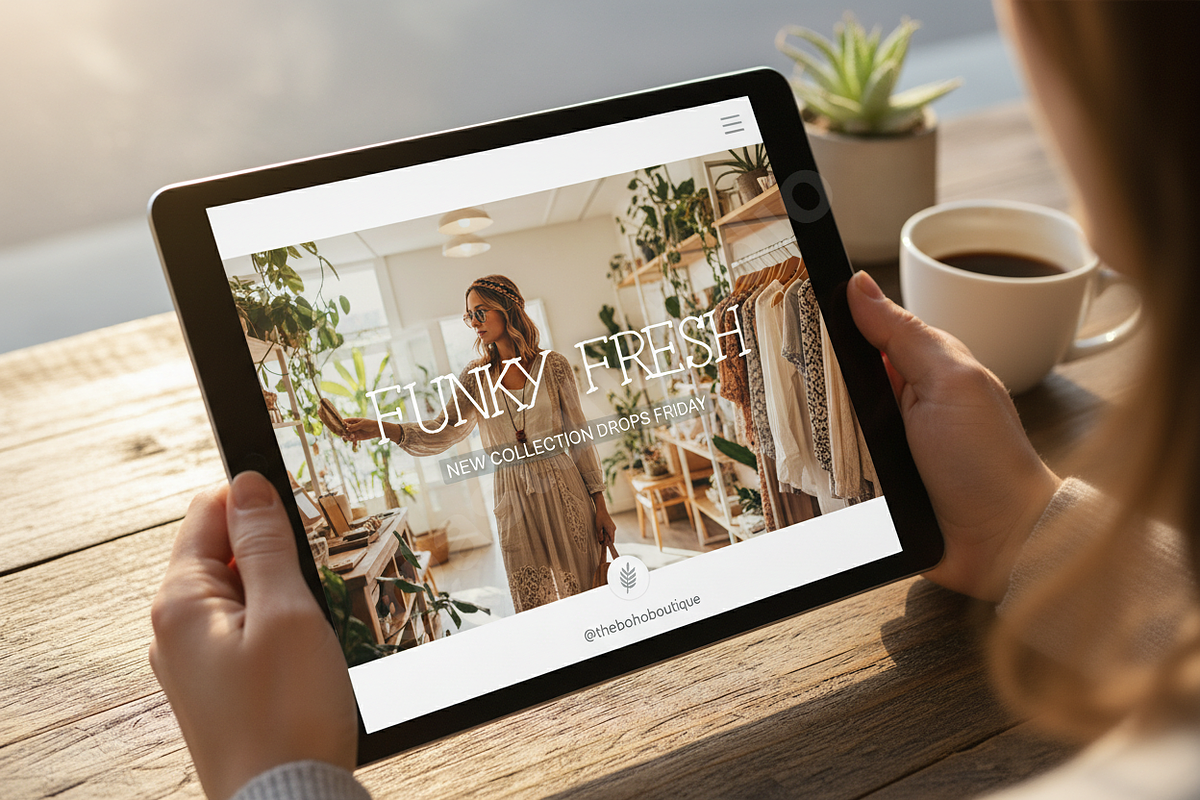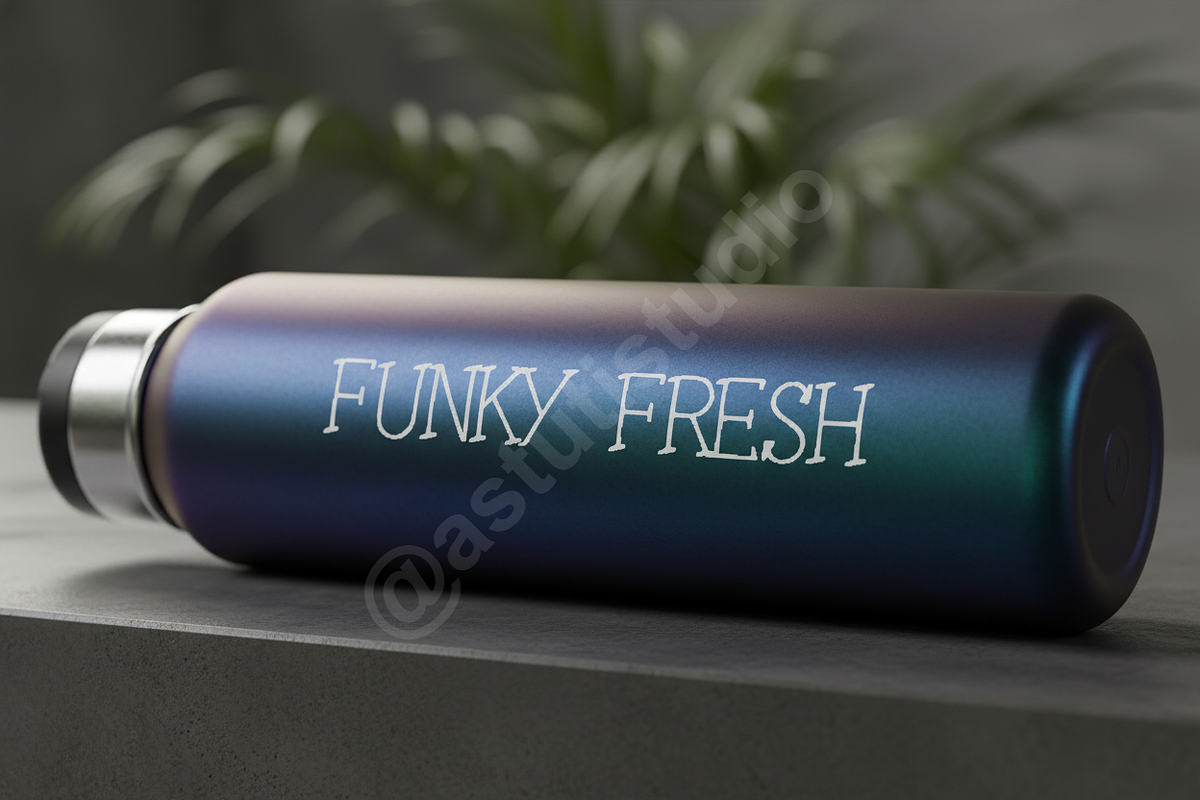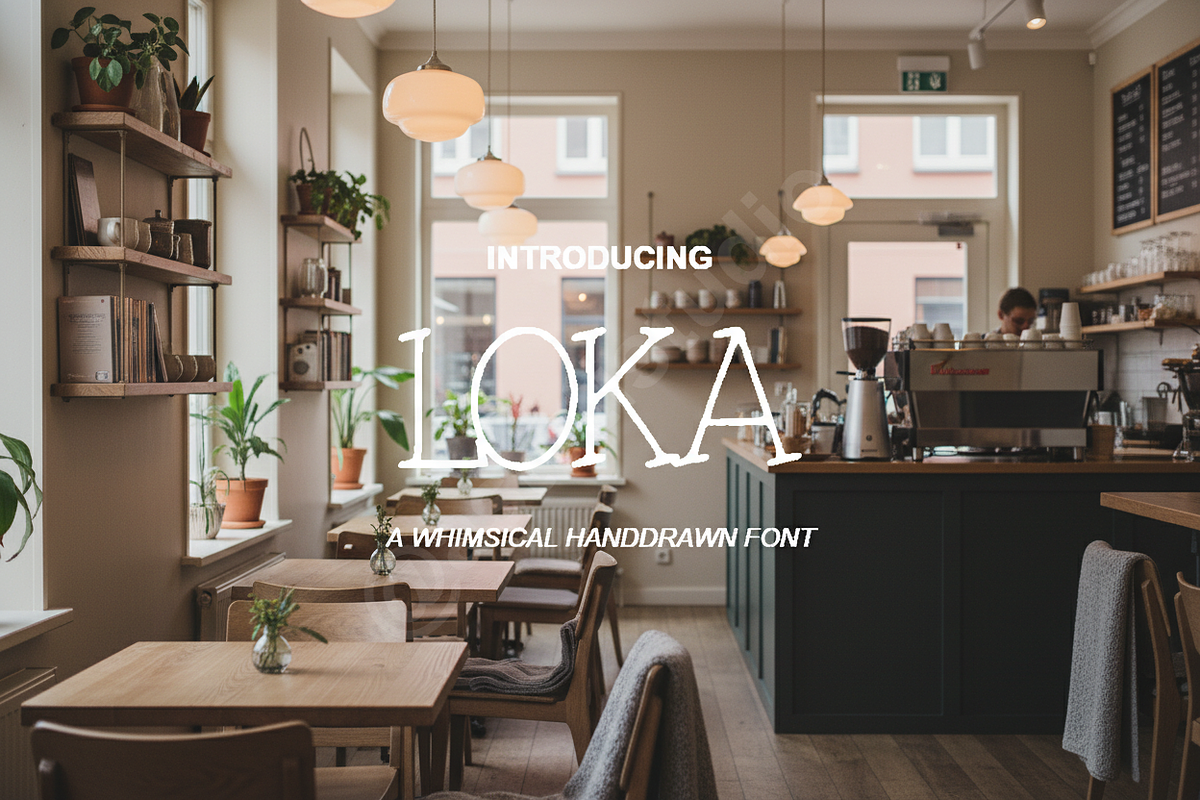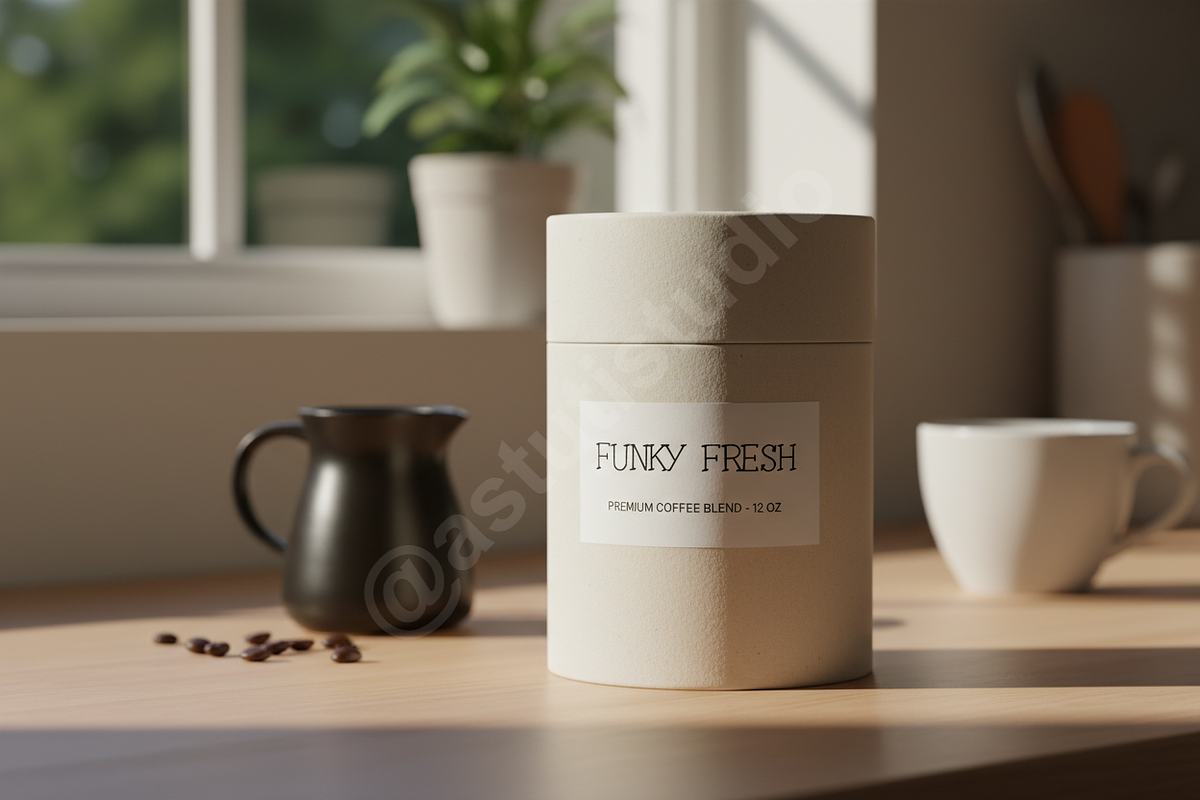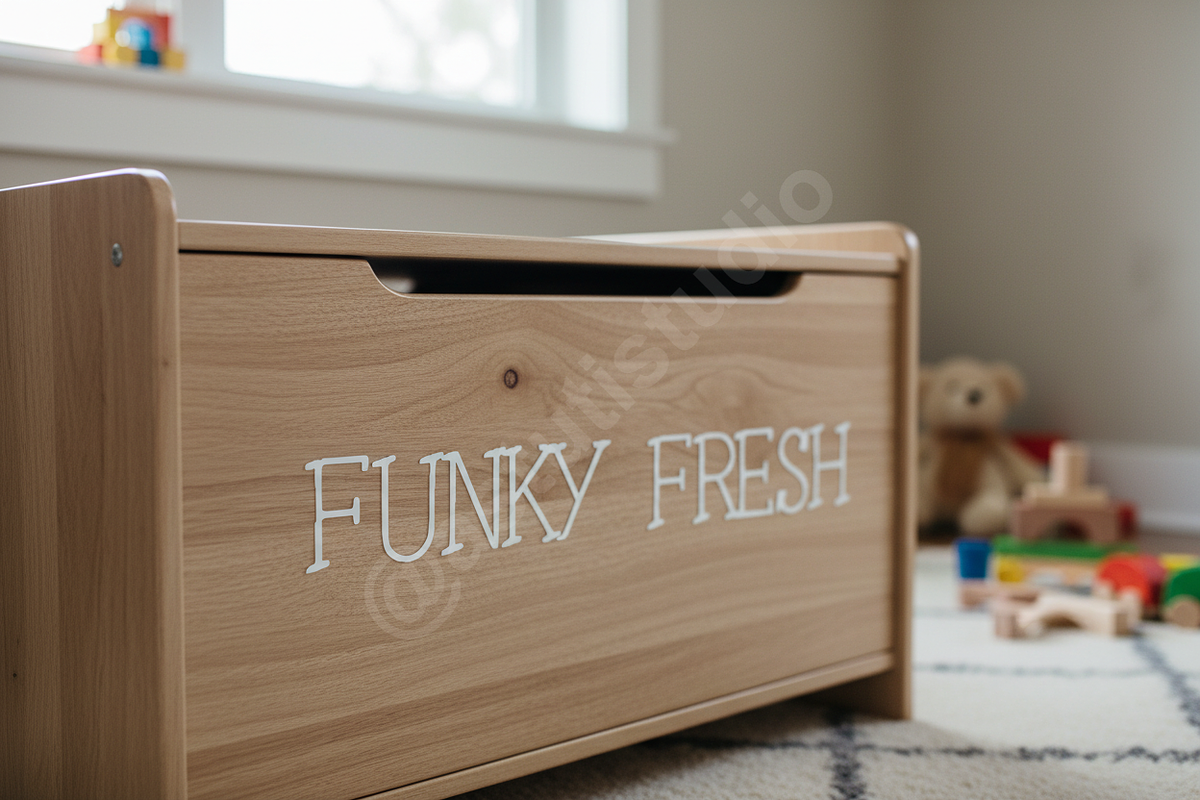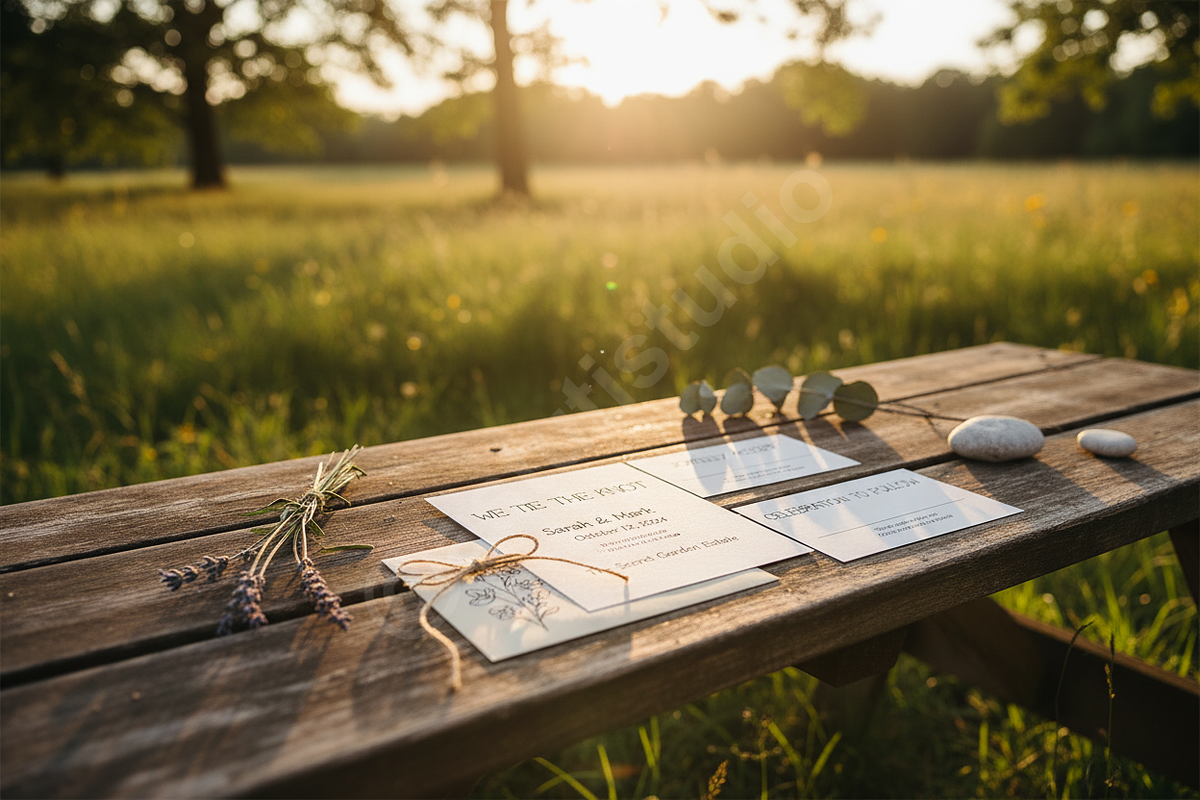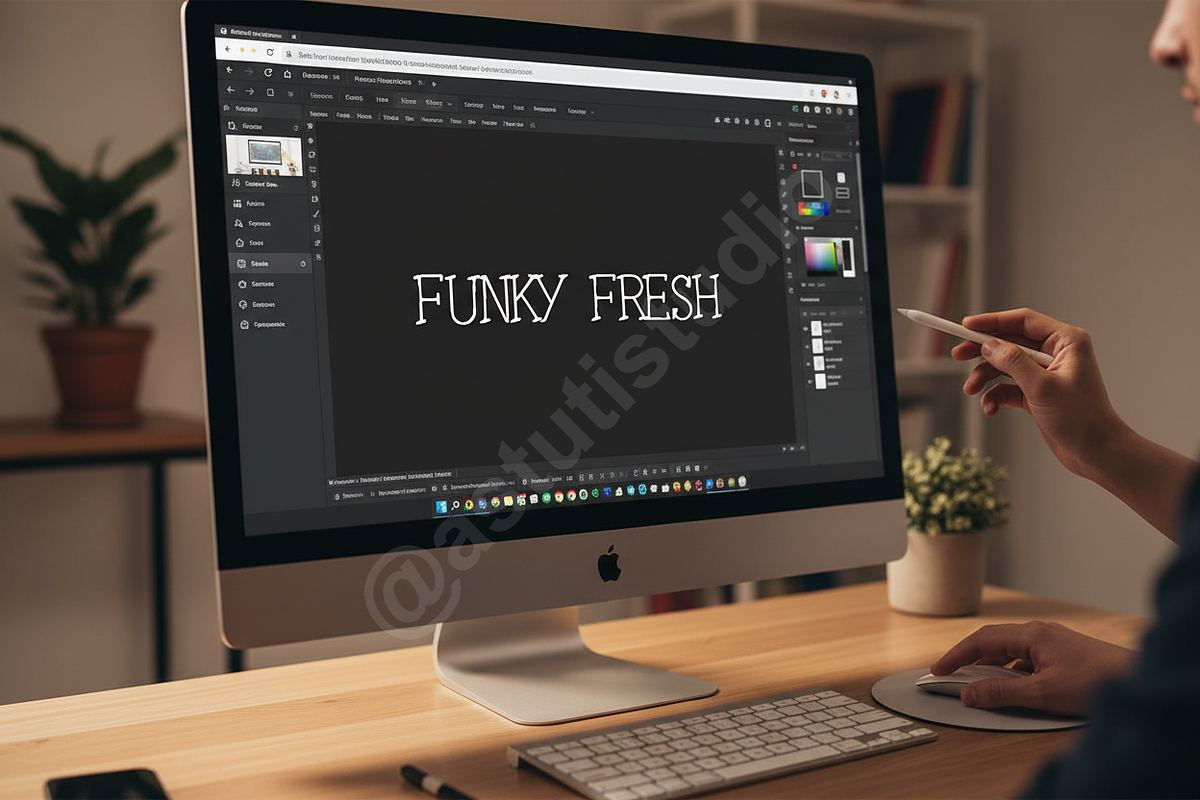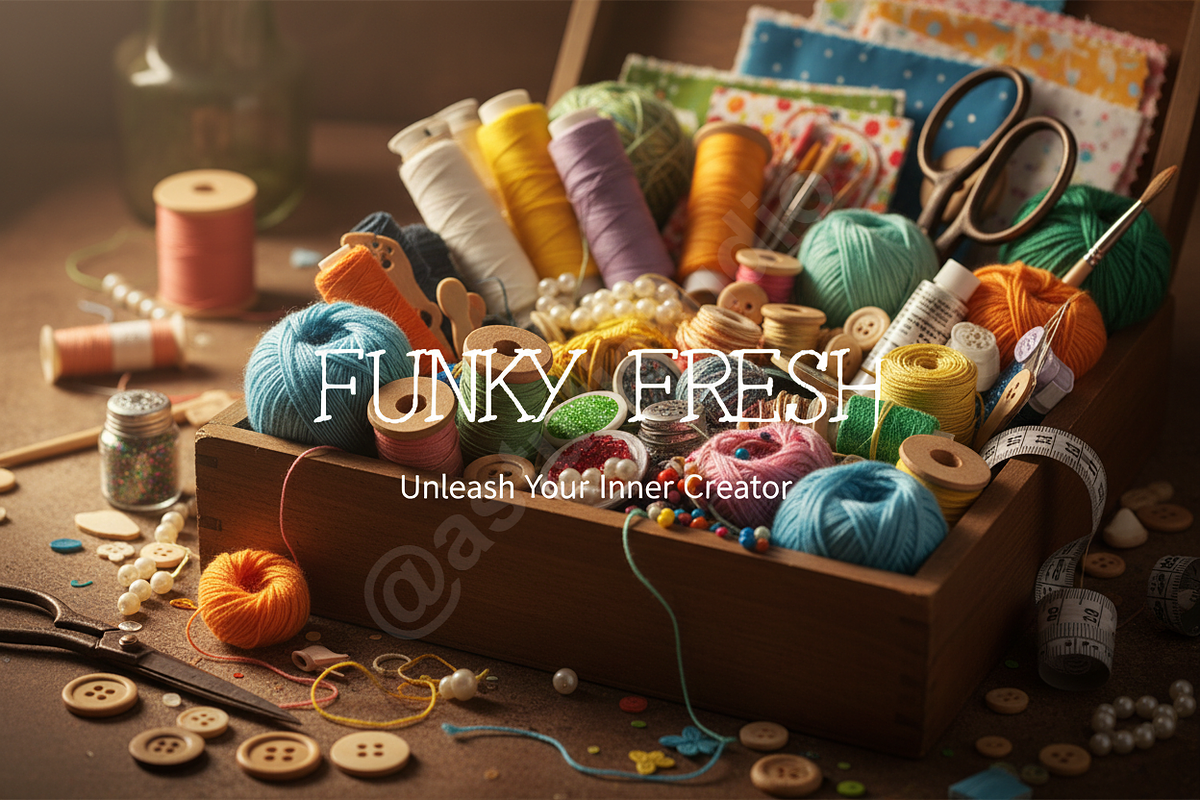
Loga | Sophisticated Luxury Serif Ty
INTRODUCTION Loga is a refined serif typeface meticulously crafted for high-end brand identities and timeless design projects. With its balanced proportions and sharp, elegant strokes, Loga bridges the gap between classic editorial aesthetics and contemporary digital clarity. This typeface is the ideal choice for those looking to convey an aura of prestige, making it perfect for luxury branding, editorial layouts, and high-impact social media content.
- Elegant high-contrast letterforms for a premium feel
- Extensive multilingual support for global reach
- Clean, minimalist aesthetic suitable for fashion and jewelry industries
- Optimized kerning and tracking for professional legibility
- Sophisticated character set for both print and digital displays